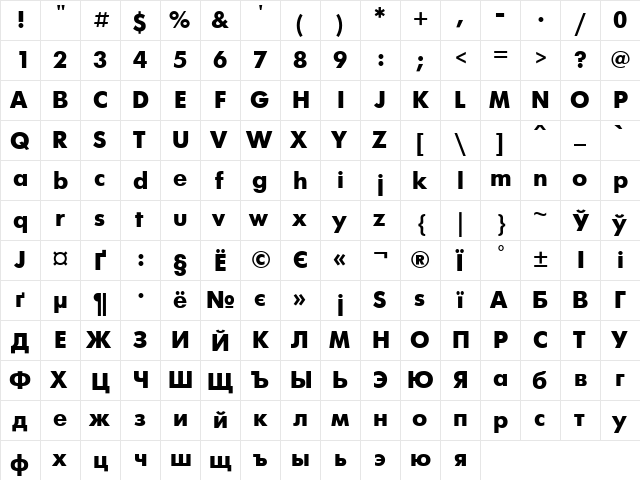
UkrainianFuturisExtra Regular
Design Context for UkrainianFuturisExtra Typeface
UkrainianFuturisExtra has a distinctly futuristic character, with geometric precision and clean angles that feel at home in technology, gaming, and sci-fi contexts.